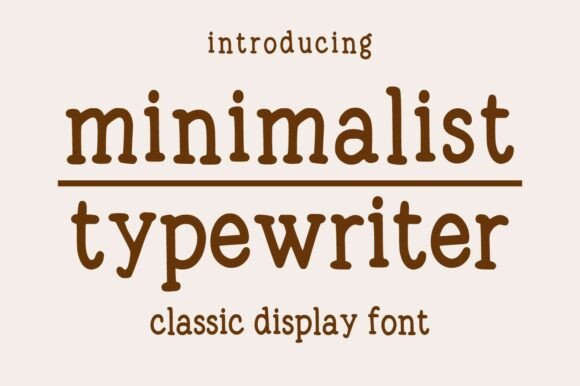
A Fresh Take on Classic Typewriter Style for Modern Design
There’s something inherently authentic about the click and clack of a typewriter, a feeling of honest craftsmanship that translates beautifully into visual design. The Minimalist Typewriter font captures this nostalgic essence without the digital clutter, offering a clean, elegant typeface inspired by traditional lettering. It brings a timeless character to any project, balancing vintage appeal with contemporary simplicity.
The Anatomy of a Clean, Vintage-Inspired Typeface
At its core, this typeface is a study in refined restraint. The designers have stripped away the superfluous grit and unevenness often associated with retro fonts, leaving behind simple, legible shapes that echo the classic typewriter. The result is a display font that feels both familiar and fresh. Its even spacing and consistent letterforms ensure it scales well, maintaining readability whether used for a bold headline or a subtle accent. This makes it a versatile addition to any designer's toolkit, bridging the gap between serif and sans serif aesthetics with its own unique character.
Where This Font Truly Shines: Practical Applications
The versatility of Minimalist Typewriter is one of its greatest strengths. It’s not limited to a single style of project. Consider using it for:
- Editorial & Book Design: Perfect for chapter titles, pull quotes, or subtitles that need a touch of literary sophistication.
- Branding & Logo Design: Ideal for brands that value heritage, craftsmanship, or a retro-modern identity. It works beautifully for logos, business cards, and brand guidelines.
- Packaging & Posters: Adds a tactile, authentic feel to product labels, especially for artisanal goods, coffee shops, or vintage-inspired merchandise.
- Digital & Social Media: Creates engaging graphics for Instagram, Pinterest, or website headers where a distinctive, readable font is needed to stand out.
- Invitations & Stationery: Sets a classic, elegant tone for wedding invitations, event programs, or personal correspondence.
Its ability to evoke a specific mood without overwhelming a layout makes it a powerful tool for visual storytelling.
Pairing and Hierarchy: Making the Font Work for You
Effective typography is about conversation between fonts. Minimalist Typewriter pairs exceptionally well with clean sans serif fonts for body text, creating a clear visual hierarchy. For example, use it for main headings and pair it with a geometric sans serif for subheadings and paragraphs. This contrast highlights its vintage character while ensuring the overall design remains modern and legible. When setting headlines, consider generous letter-spacing to enhance its elegant, airy quality. Always test the font at the intended size to confirm its impact and readability in context.
Typography is a silent ambassador for your brand. The right typeface communicates tone, values, and quality before a single word is read. Minimalist Typewriter offers a unique blend of nostalgia and cleanliness, making it a thoughtful choice for projects that aim to feel both timeless and intentional. Its classic vintage character, combined with a minimalist aesthetic, provides that subtle vintage touch many designers seek, helping to elevate designs with a polished, authentic voice.